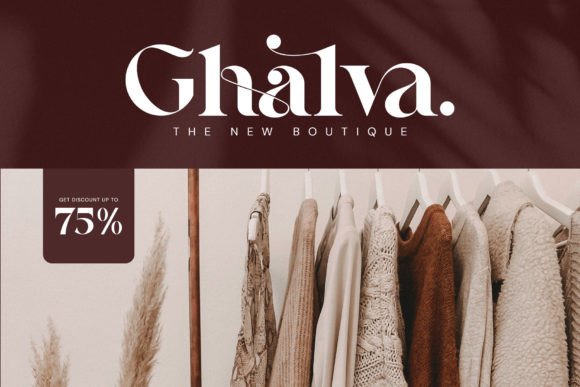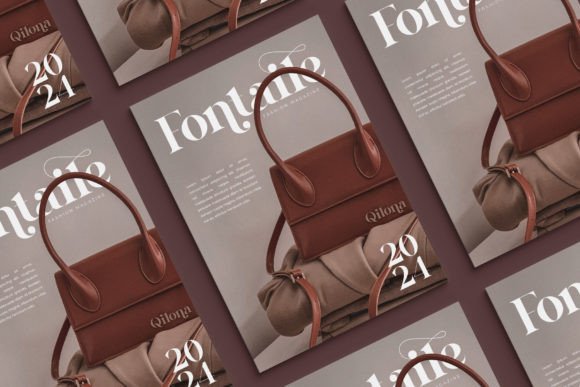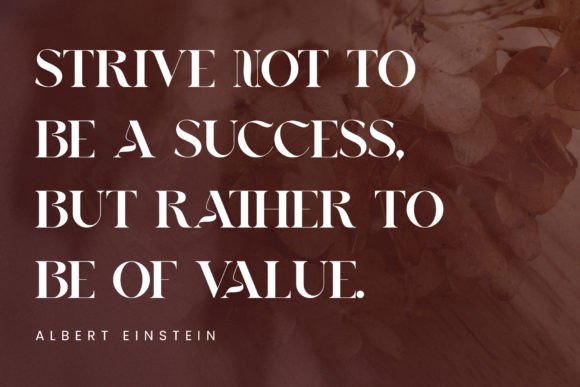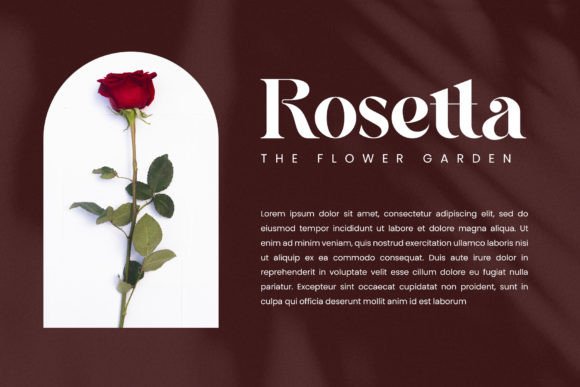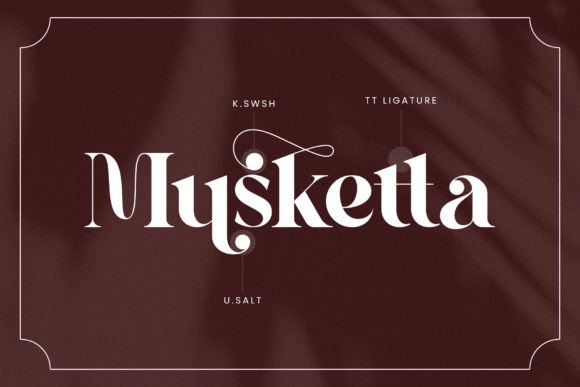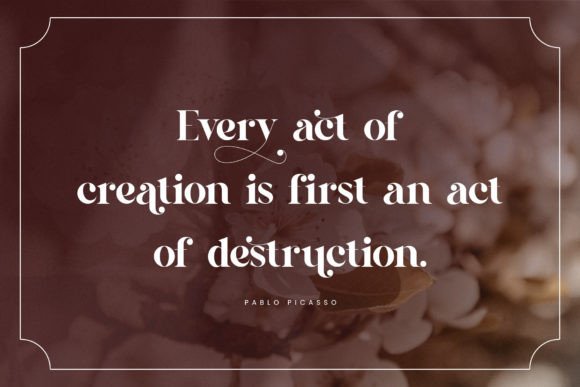
Introduction to Qilona Font
Qilona Serif is a balanced, smooth, elegant, and stylish serif font.
He has a beautiful character It fits perfectly with invitation card designs, company logos, movie titles, movie names, business cards, book titles, brand names, and various other designs.
Key Features of Qilona Font